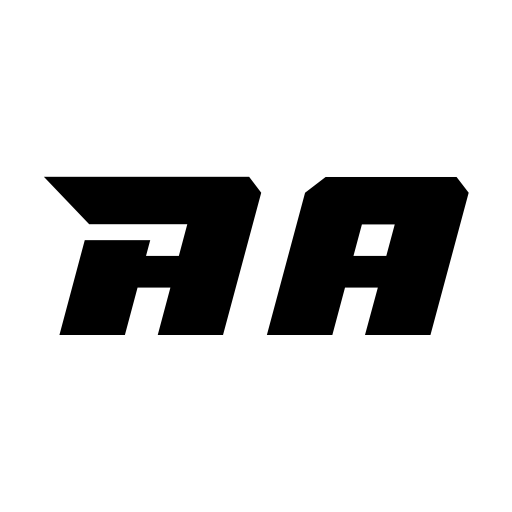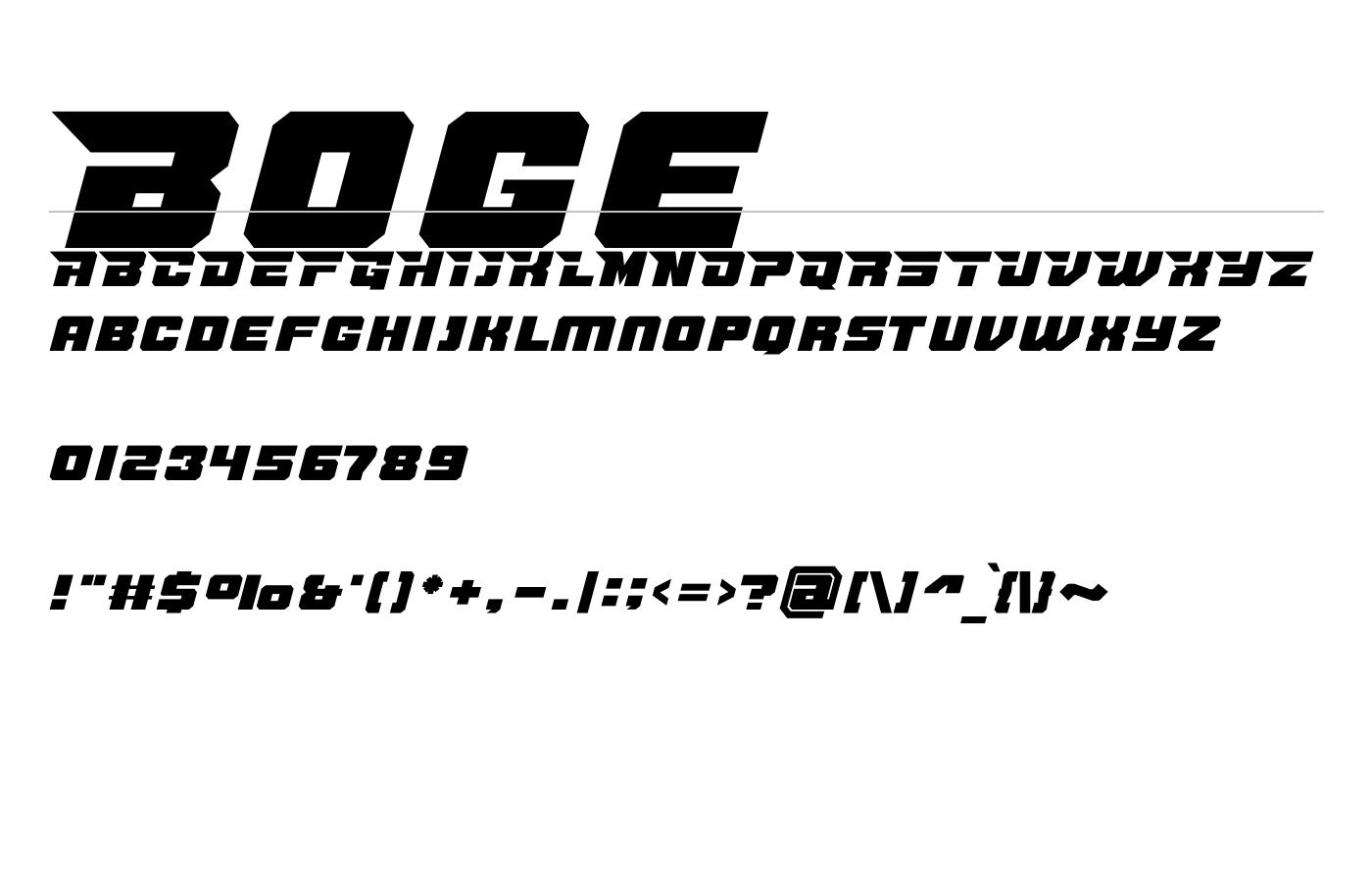
Boge Font is a bold, condensed sans serif typeface with sharp, geometric edges and a dynamic, forward-leaning slant that gives it a strong sense of motion and energy. Its high contrast between thick strokes and angled cuts creates a striking, modern look that’s perfect for sporty branding, headlines, posters, and logos where a powerful, assertive personality is needed. This font excels in creating impact and conveying speed, strength, and modernity in visual communications.
Boge Font